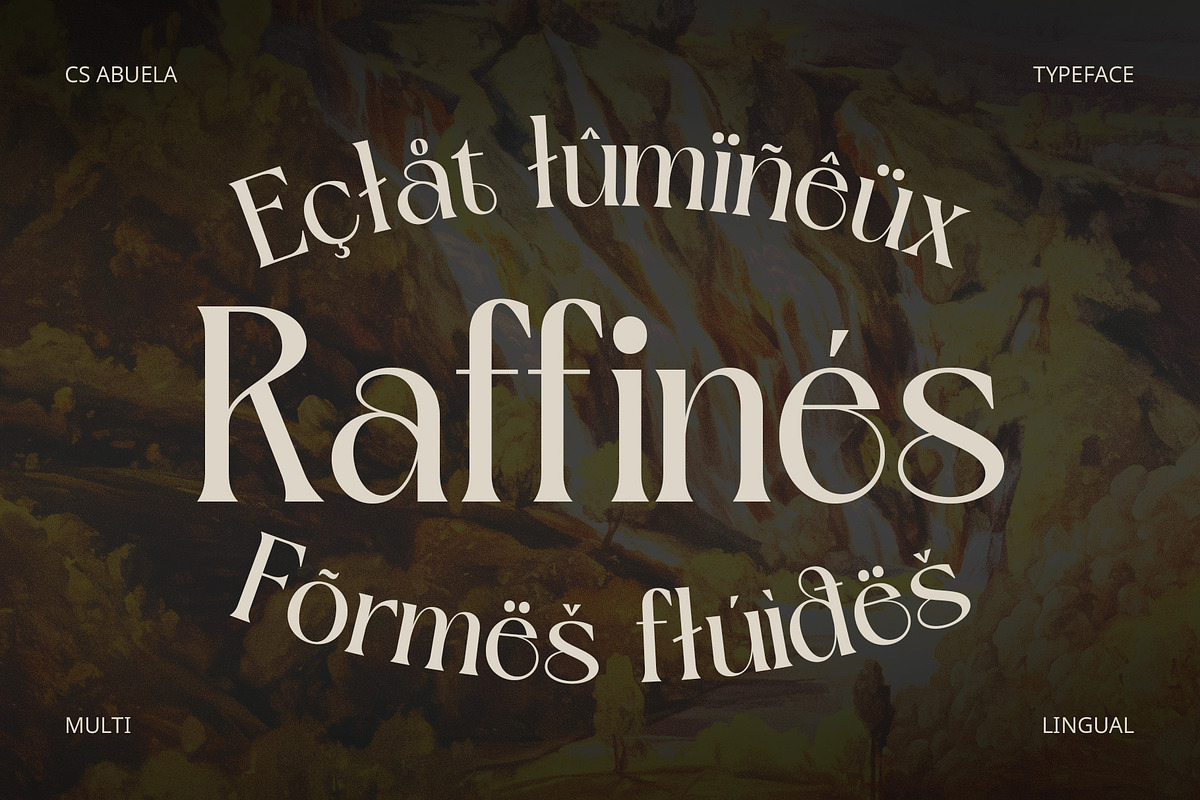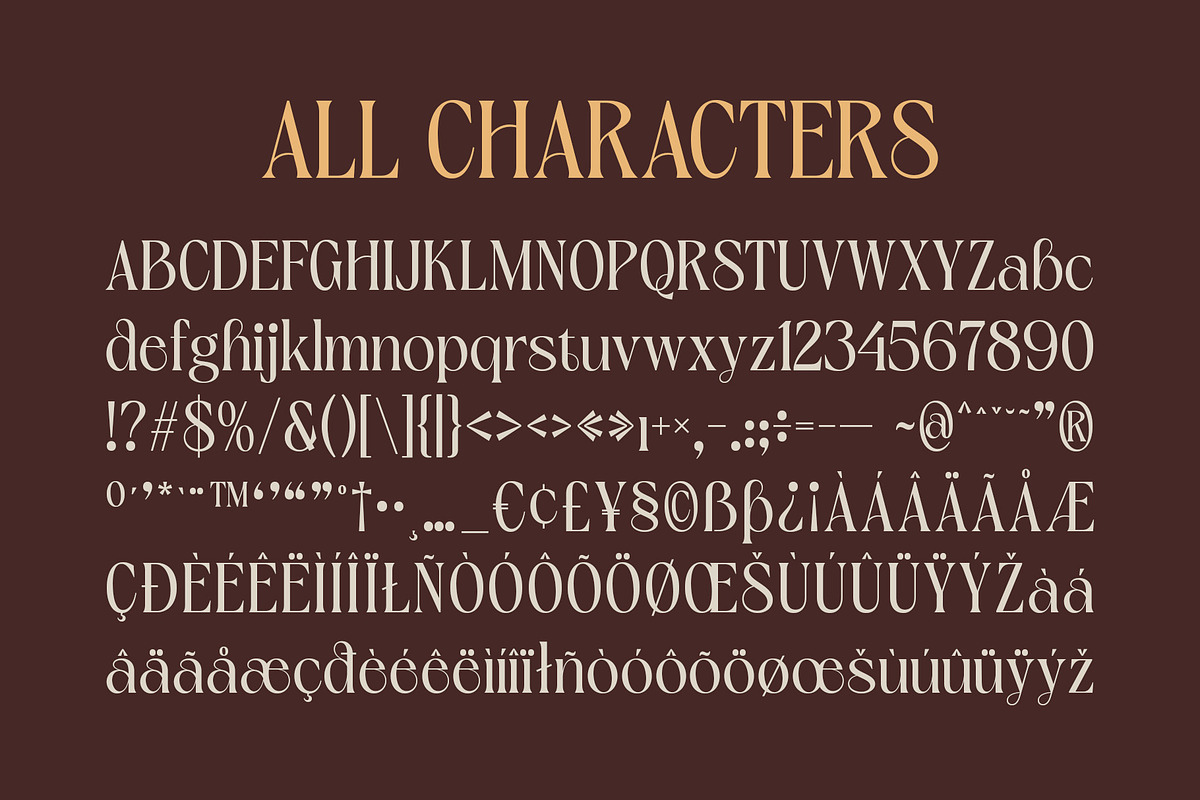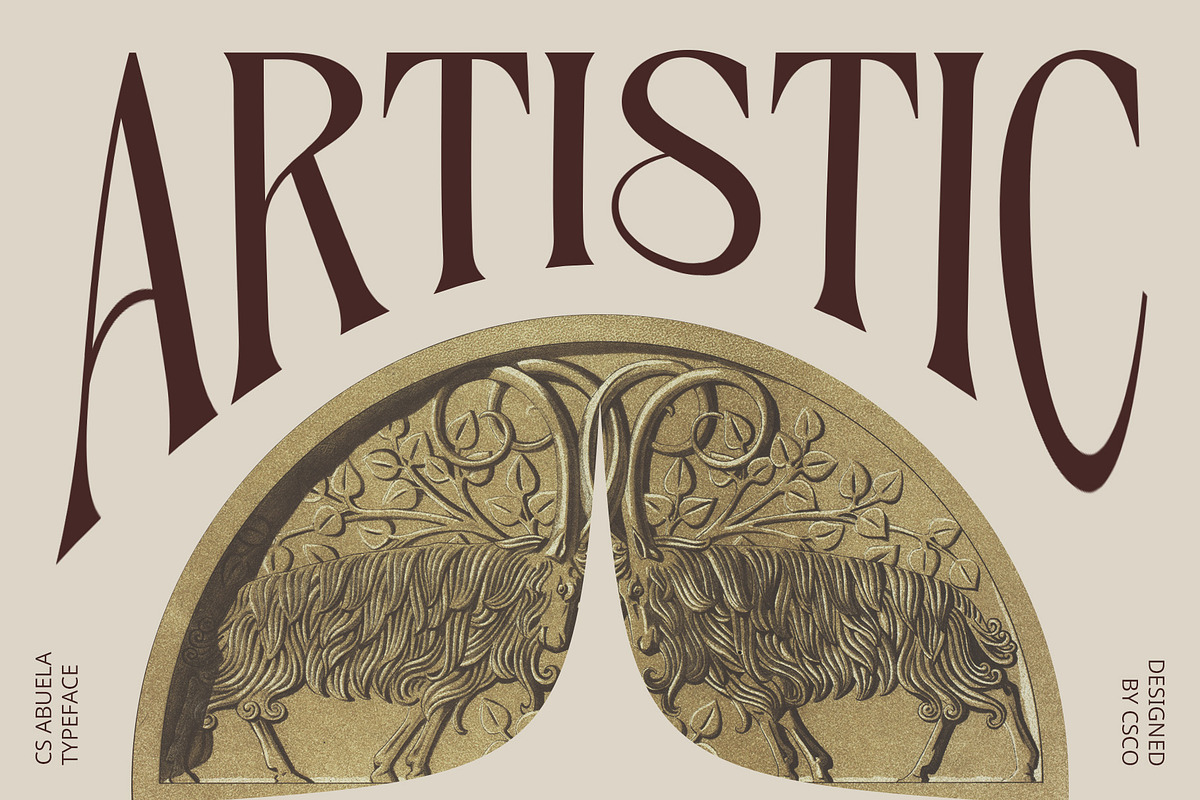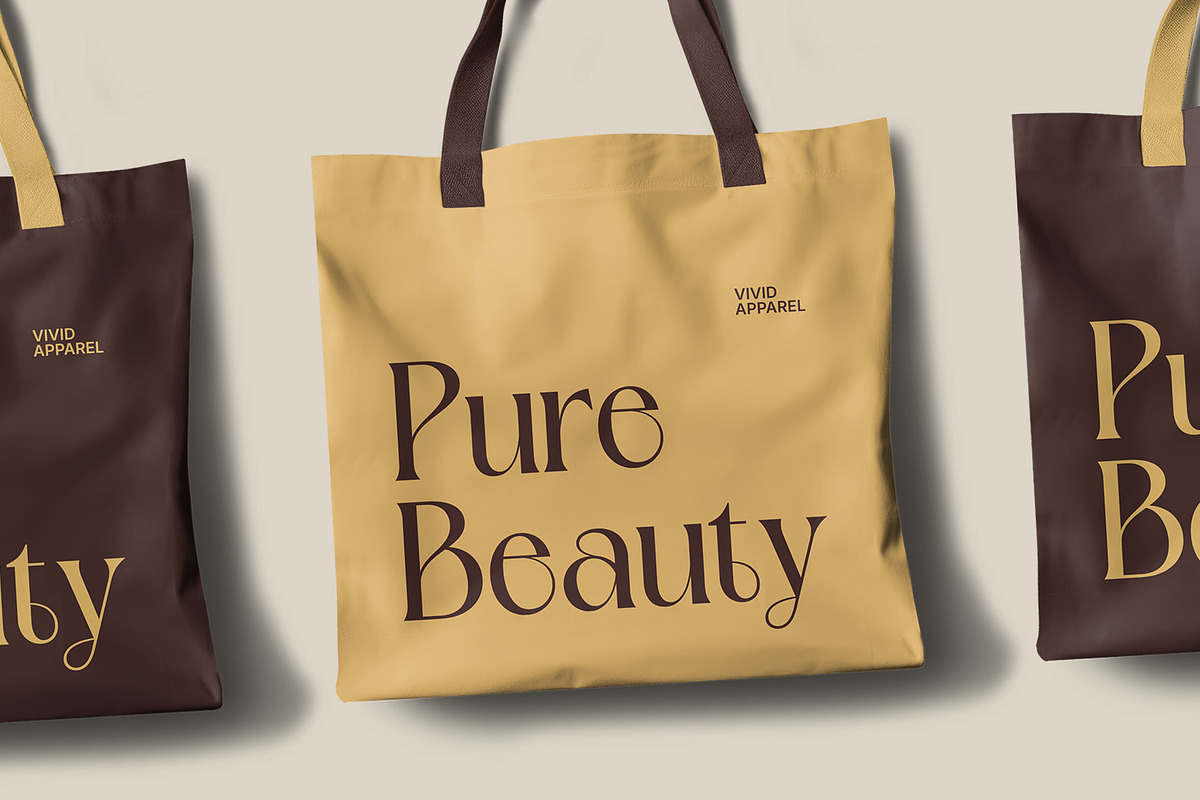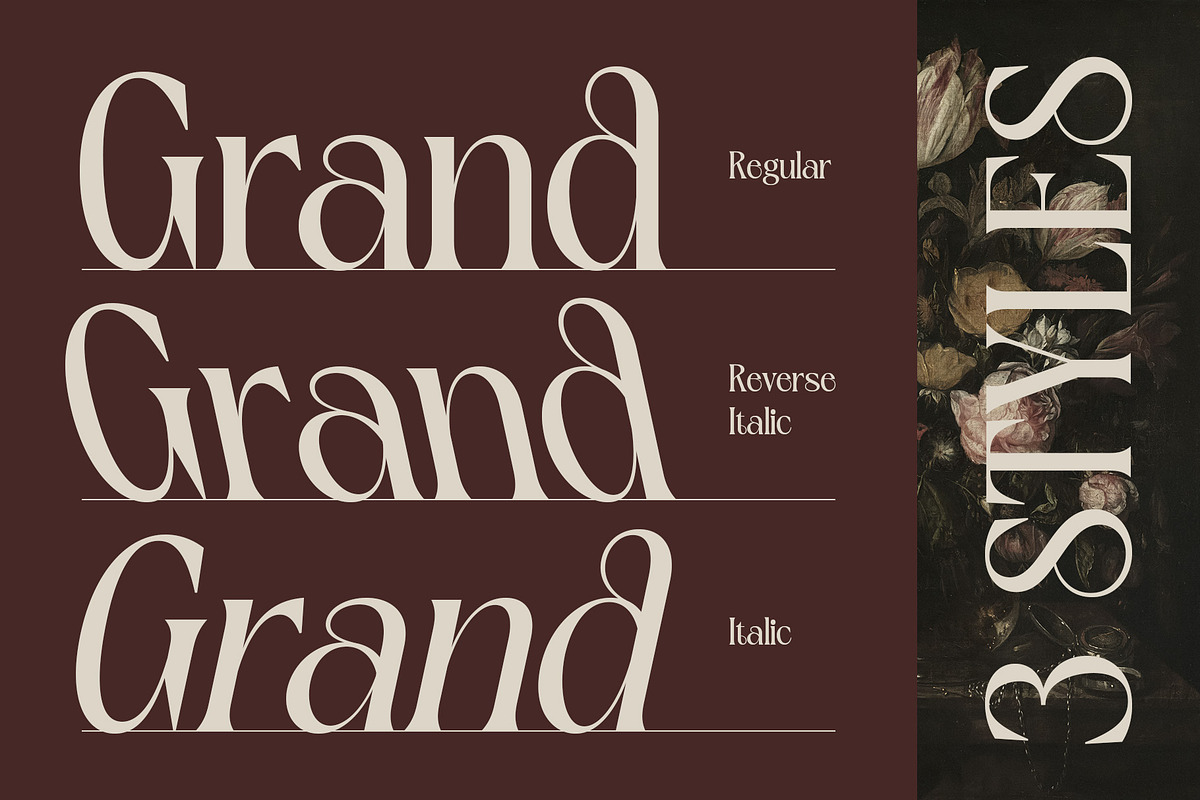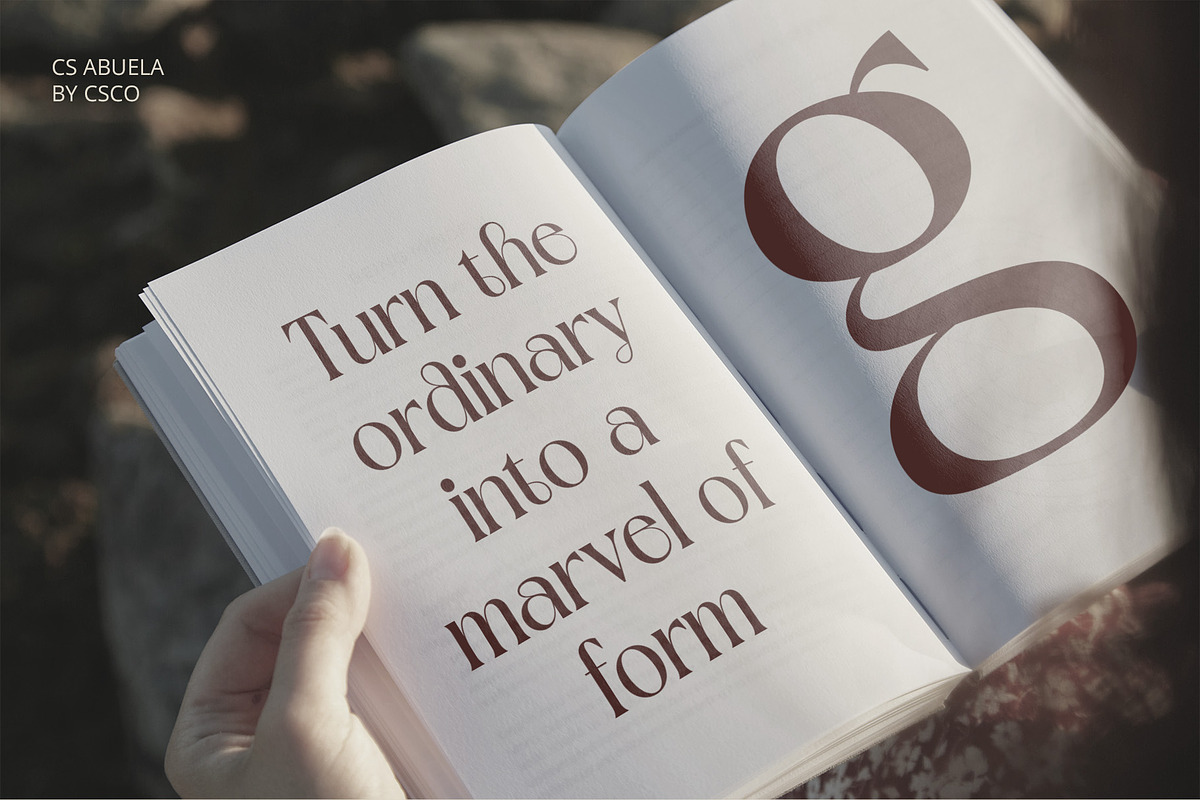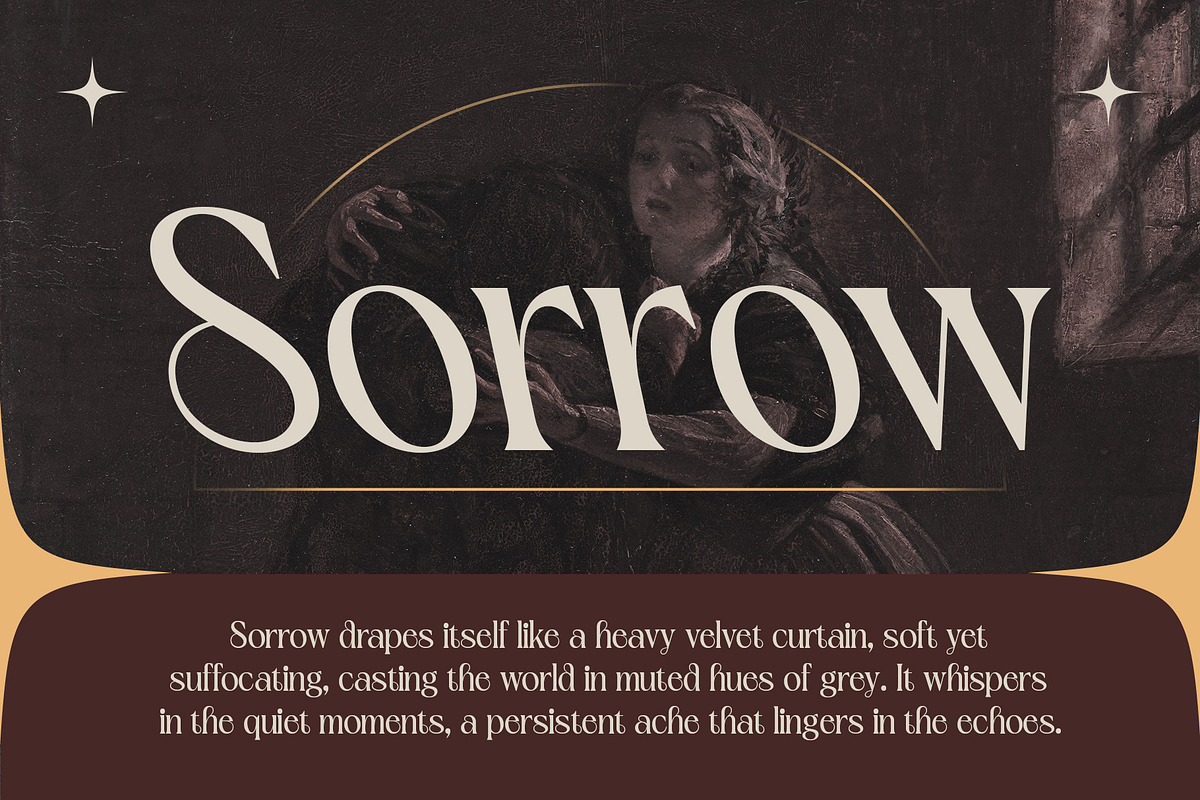
CS Abuela – Art Nouveau Font
CS Abuela – Art Nouveau Font Elegance Meets Modern Design
A Timeless Blend of Organic Beauty and Sophistication CS Abuela is a modern display serif font with strong Art Nouveau influences, expertly combining flowing, decorative curves with elegant serifs. The organic shapes and intricate detailing exude timeless beauty and sophistication, creating a font that feels both classic and contemporary.
Artistic Curves and Intricate Detailing With its beautifully crafted letterforms, CS Abuela evokes the artistry and elegance of the Art Nouveau movement, making it perfect for designs that require a refined and artistic touch. The flowing curves and ornamental flourishes make it stand out, ensuring each letterform feels like a piece of art in itself.
Ideal for Luxury Branding and High-End Designs Perfect for luxury branding, high-end invitations, editorial work, and artistic designs, CS Abuela offers a distinct, high-end aesthetic. Its combination of delicate curves and bold forms brings an elevated, sophisticated quality to any project, from exclusive events to fashion magazines or bespoke branding.
Elevate Your Design with Timeless Elegance Whether used for invitations, logos, or editorial designs, CS Abuela’s blend of modern and vintage charm makes it ideal for projects seeking an artistic, timeless feel. It’s perfect for designs that aim to convey elegance, creativity, and sophistication with a unique, memorable impact.